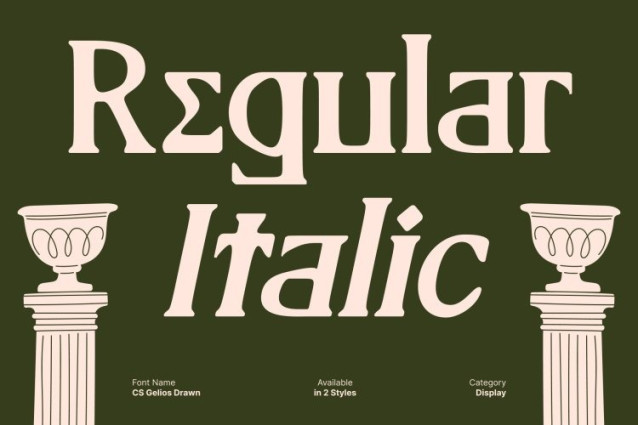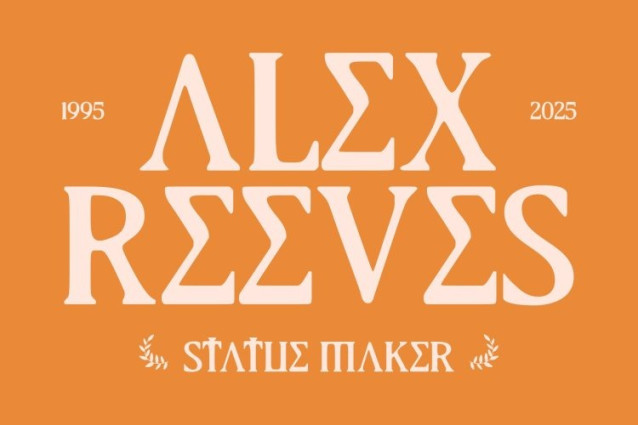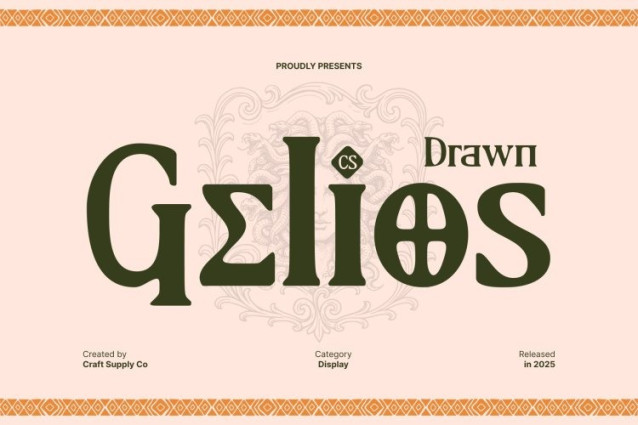
CS Gelios Drawn Font
CS Gelios Drawn Font This is a modern display serif font inspired by classic Greek letterforms, blending timeless sophistication with contemporary design. The drawn effect adds subtle handcrafted details, giving each character an artistic, unique presence while preserving its refined, balanced structure.
Sophisticated, Artistic, and Culturally Rich
Every glyph in this font is crafted with graceful proportions and visual clarity, embodying luxury, intellect, and artistic elevation. This typeface celebrates cultural depth while providing designers the flexibility to create layouts that are both elegant and distinctive.
Perfect for High-End and Editorial Designs
Ideal for premium branding, fashion titles, cultural publications, editorial layouts, museum identity systems, and upscale packaging, this font bridges classical influence with modern execution. It communicates sophistication and exclusivity across all design contexts.
A Typeface That Bridges Time
With its Greek-inspired essence and contemporary sensibility, this font offers a typographic voice that connects the ancient and the modern. Perfect for headlines, brand marks, or artistic projects, it delivers a message that is cultured, thoughtful, and visually striking.